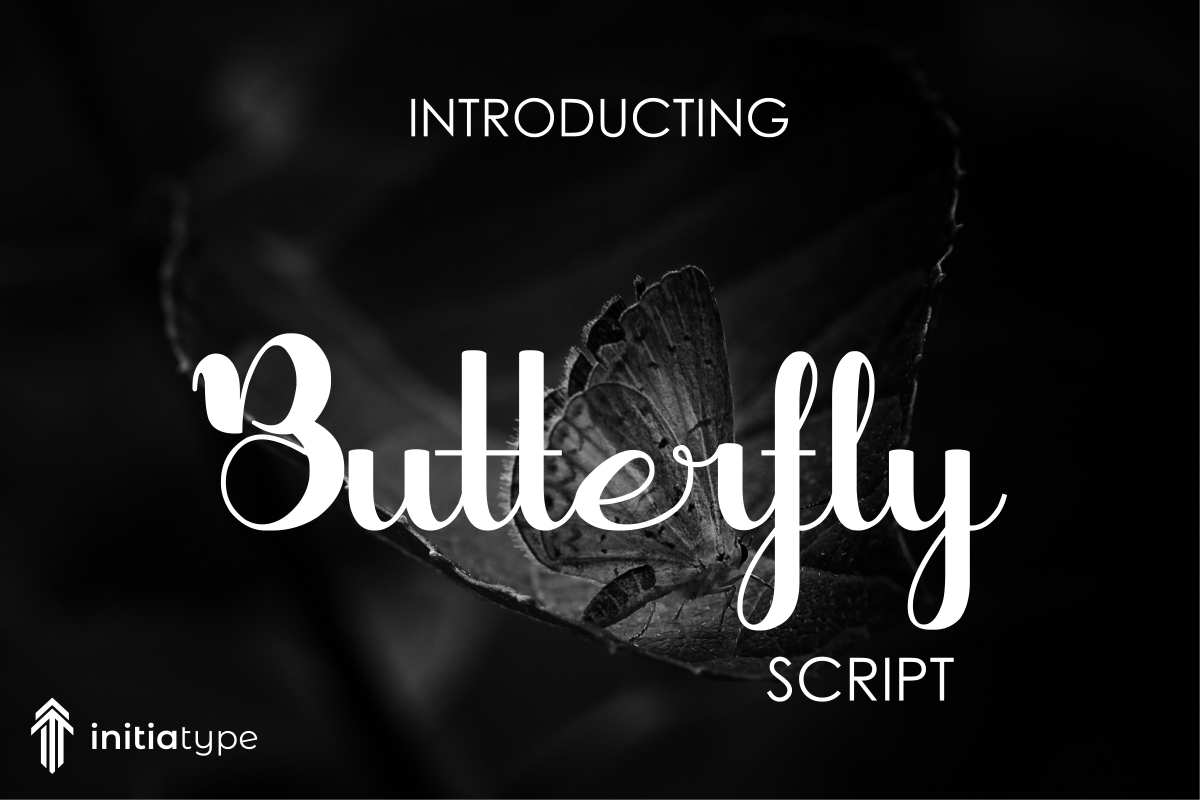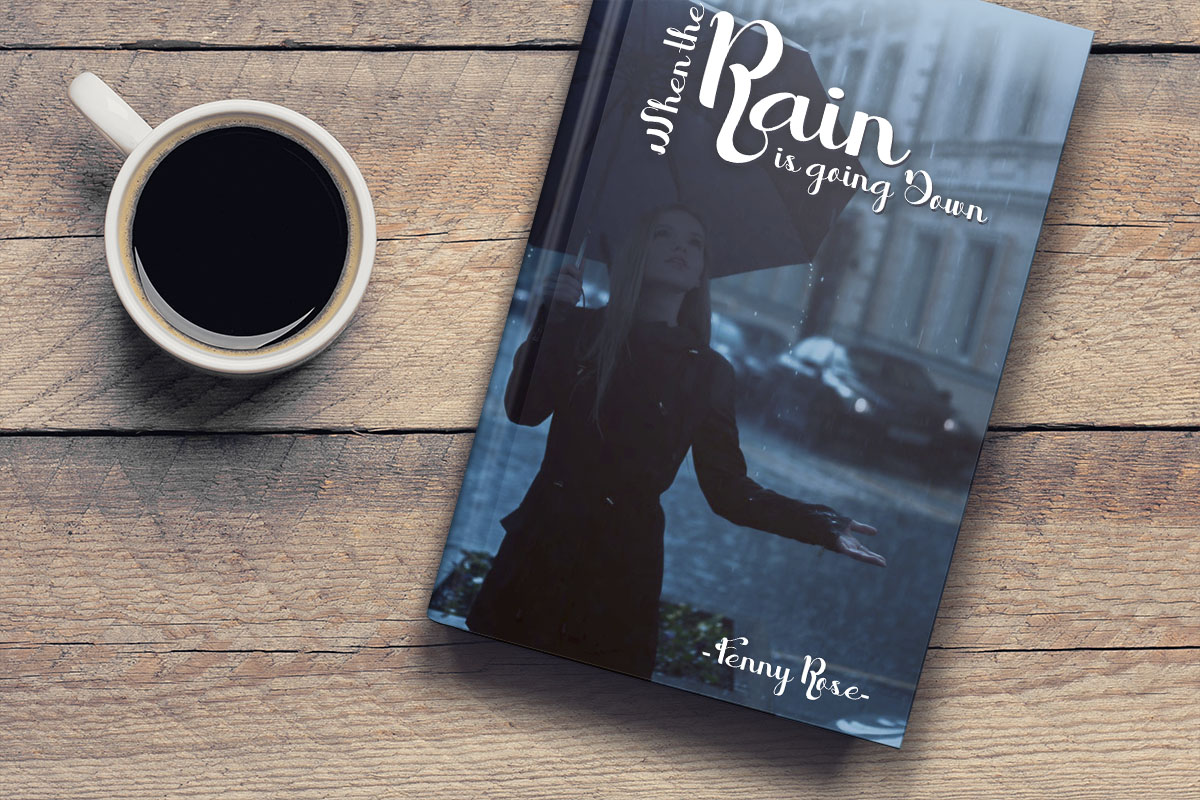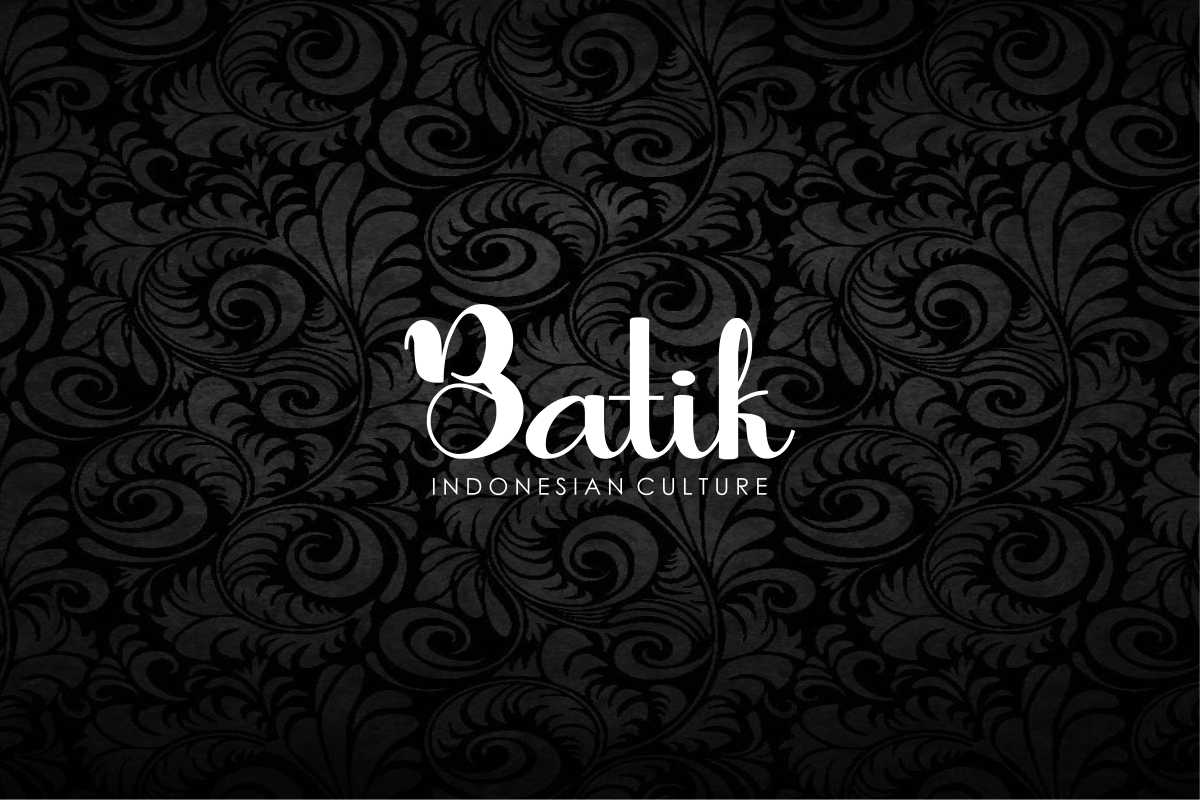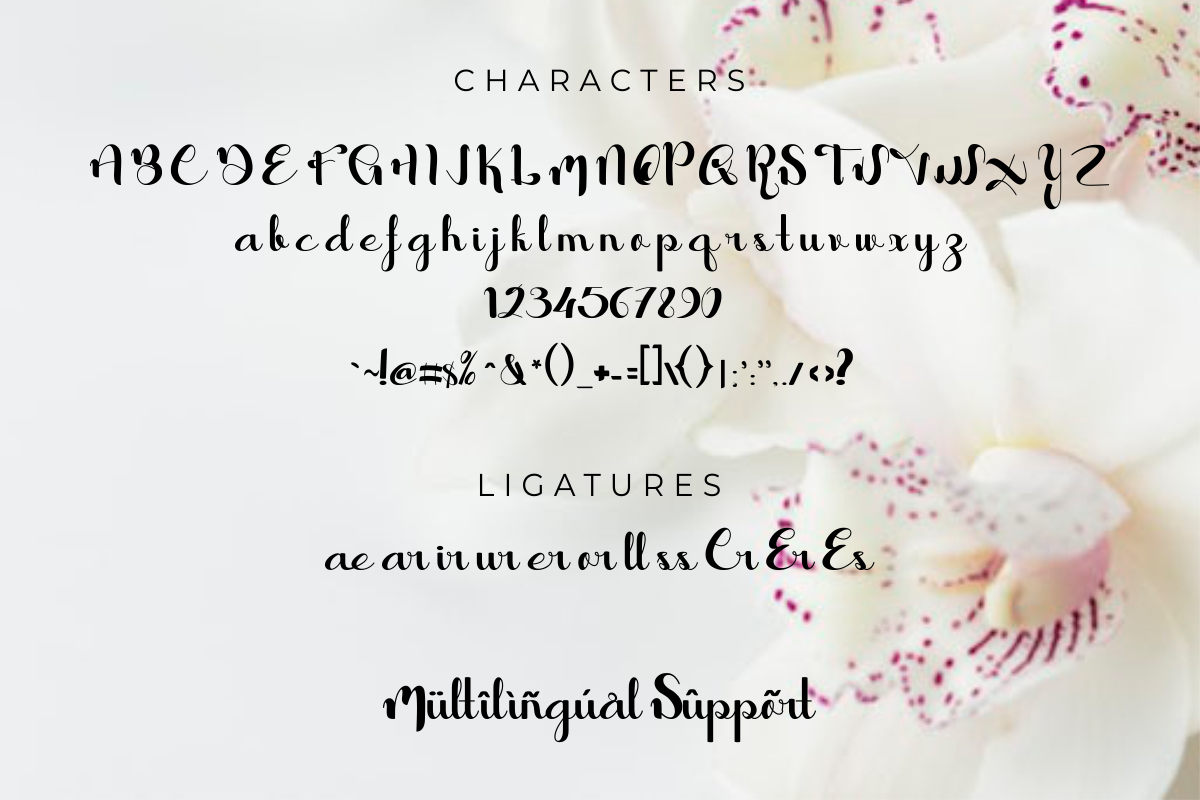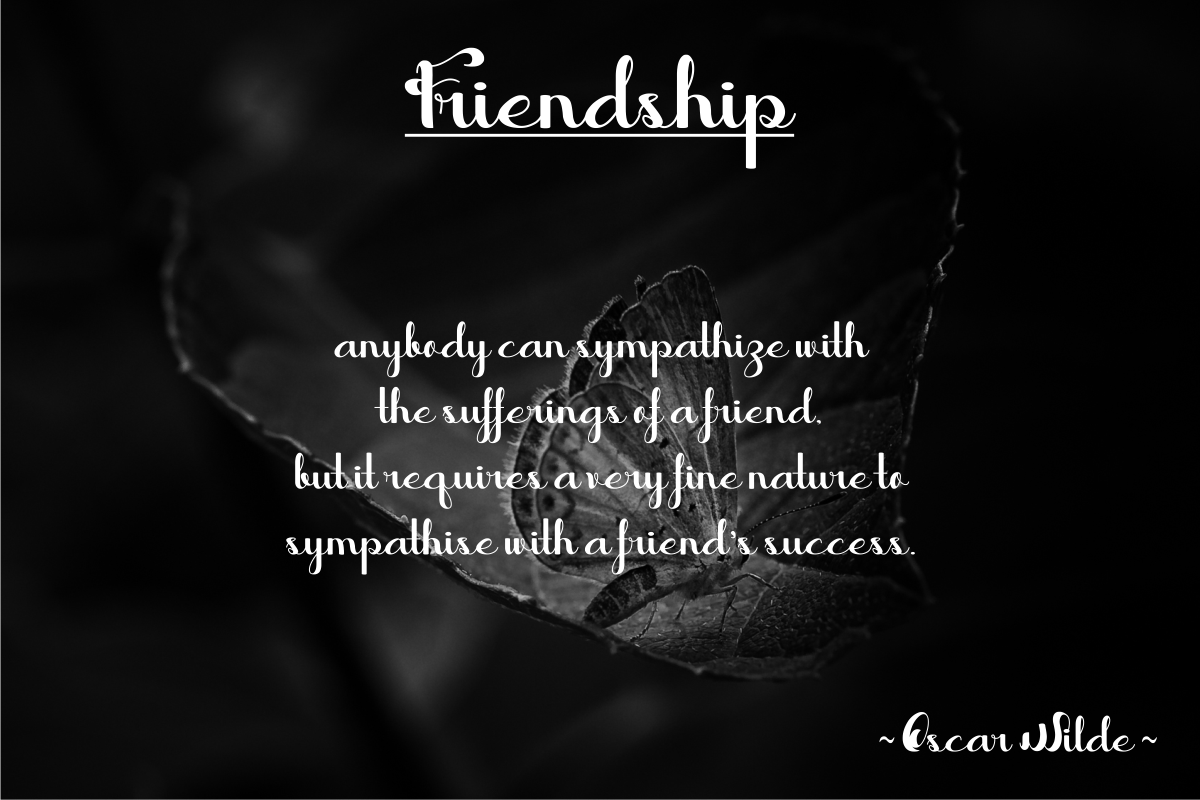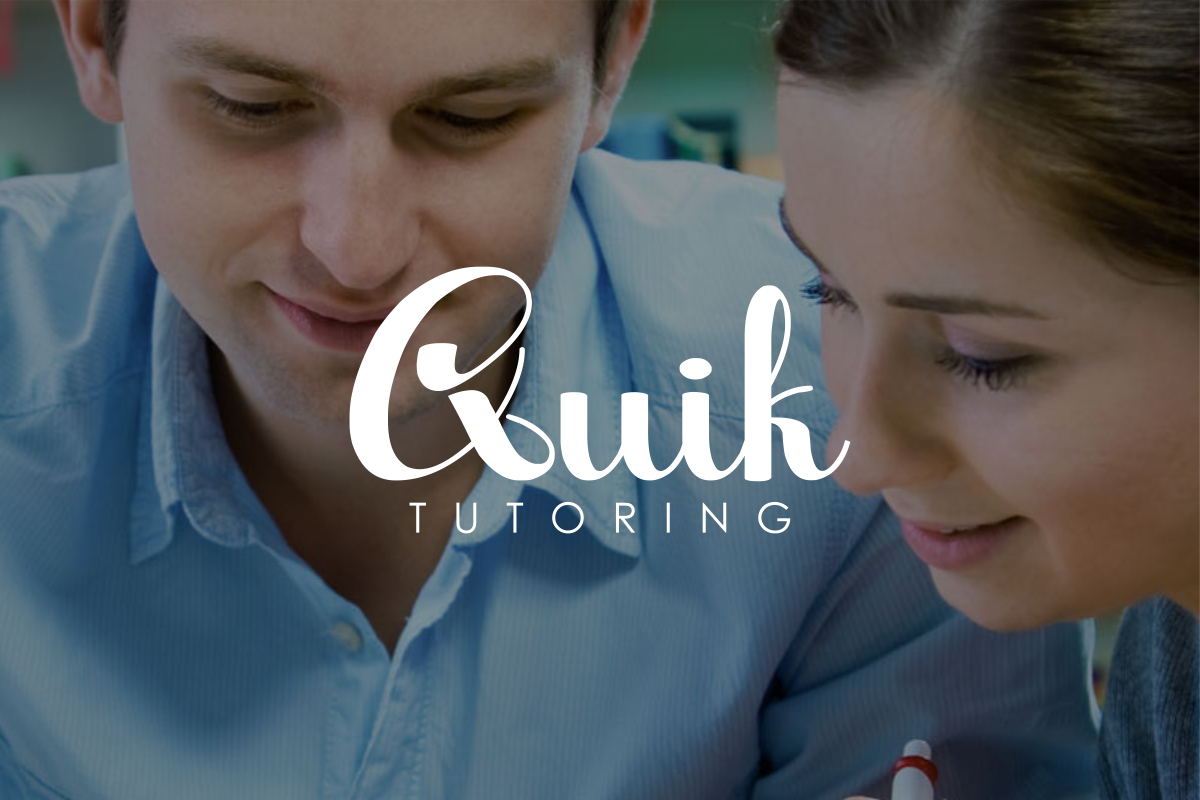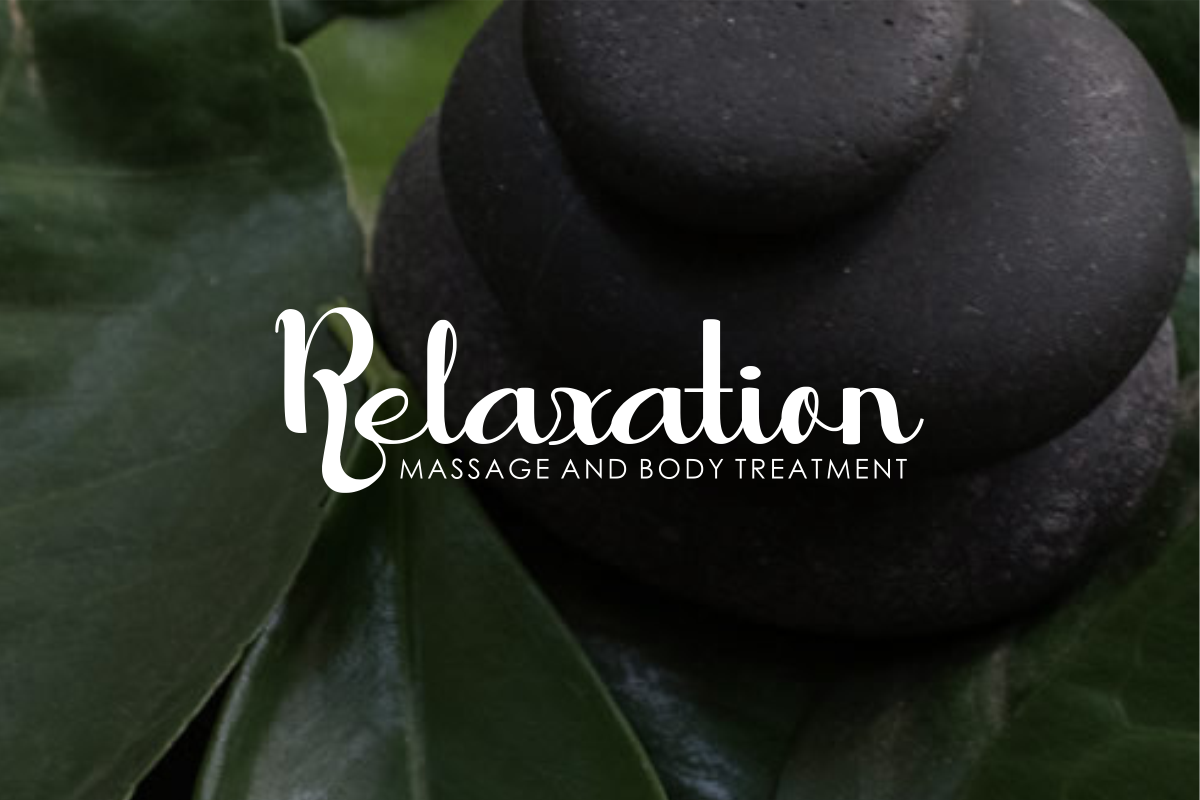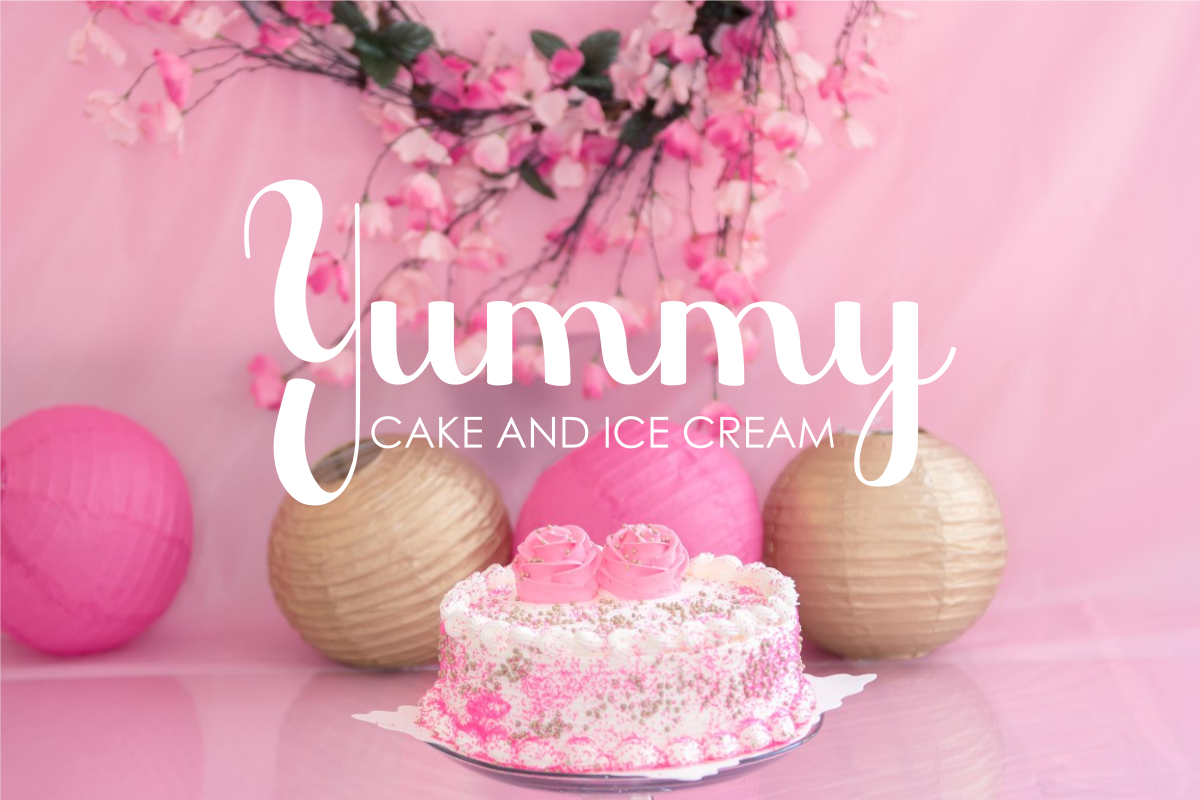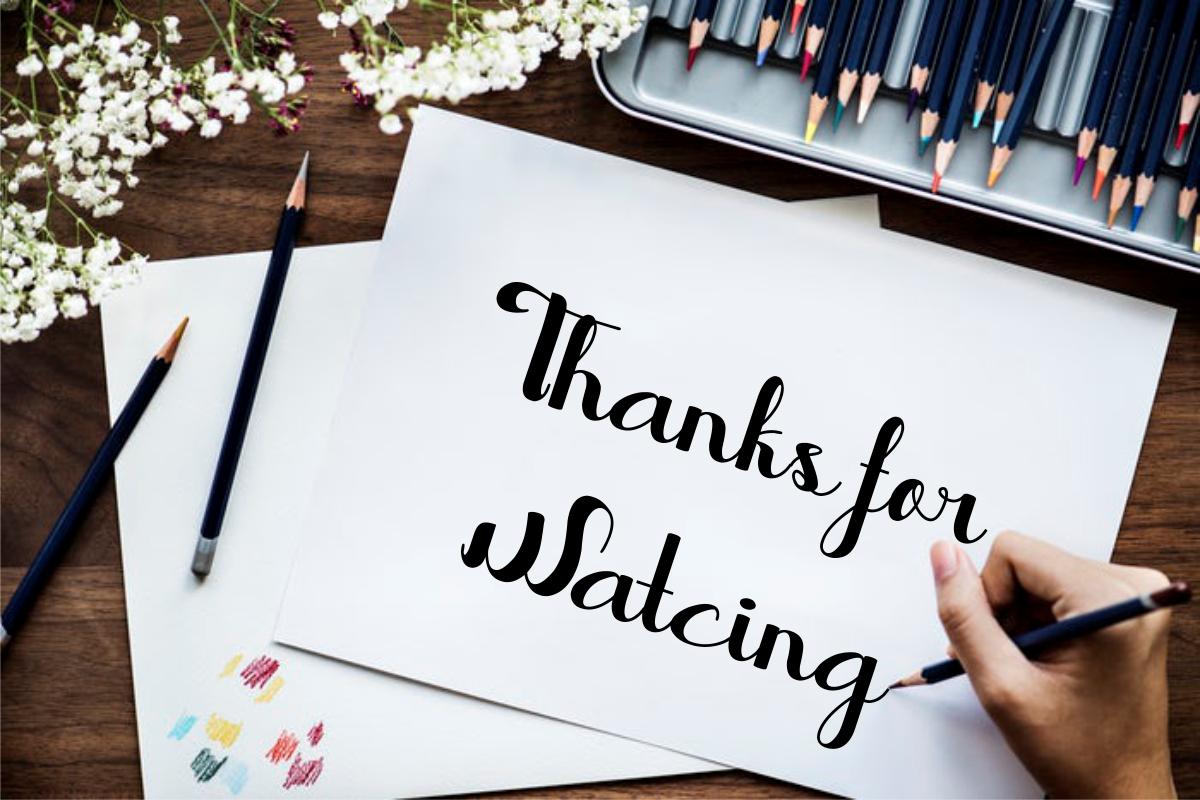
Butterfly is a beautiful and legible script font, suitable for a wide range of designs and projects. This friendly handwritten font is ideal for displays, and can give your projects a feminine charm.